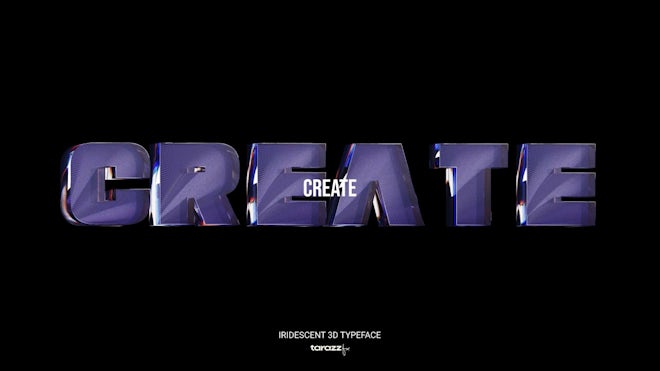
This After Effects template contains an iridescent text animation with vibrant colors and shimmering reflections. It contains 51 animated elements that you can use to create dynamic text animations for your videos. A video tutorial is included. Download it today. No plugins are required.